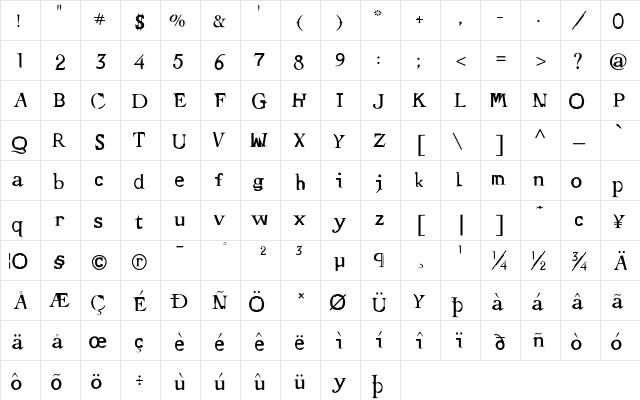
Hernia Regular
Design Context for Hernia Typeface
Hernia is a composed and adaptable typeface that performs quietly and consistently across a wide range of design contexts.